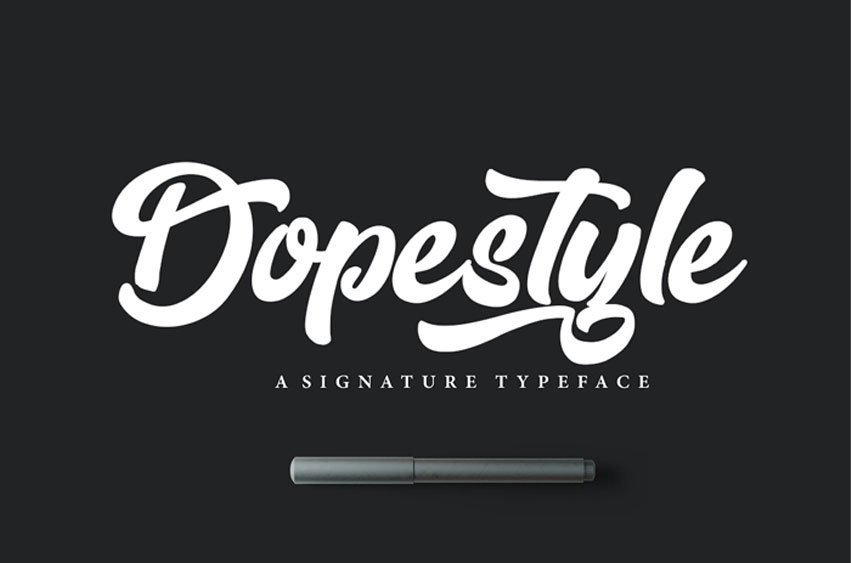
Dopestyle Font
Dopestyle Font is a signature typeface great for Logotype, Poster, Digital Lettering Arts, Clean Design, Branding Design, Signs,and more.